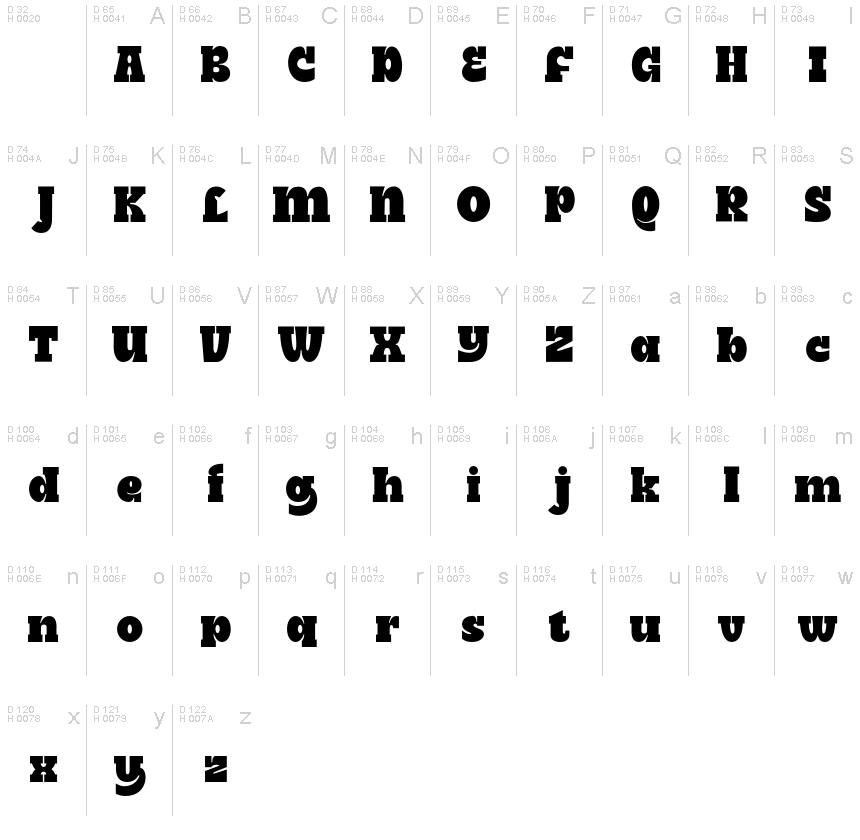
GoingClapDEMO-Normal
Going Clap, crafted by Dharmas Studio, stands out as a display font that commands attention with its bold presence and playful curves. Its design carries a contemporary flair while maintaining a friendly and approachable vibe that is as versatile as it is stylish. The font's generous proportions and voluptuous shapes make each letter pop, creating an immediate visual impact.
This font's lively character makes it ideal for branding projects, eye-catching headlines, or any creative endeavor that requires a touch of whimsy without sacrificing boldness. Whether on digital platforms or printed media, Going Clap is perfectly suited to inject personality into your message and draw in the viewer with its distinct charm.